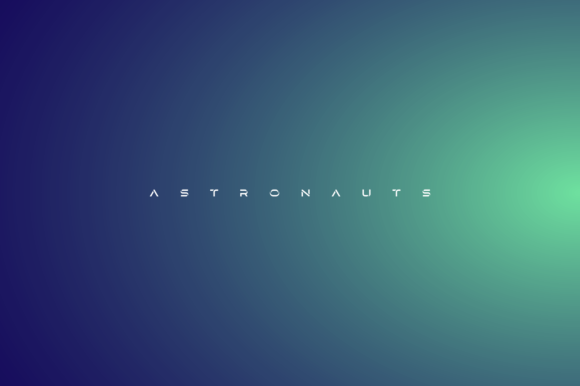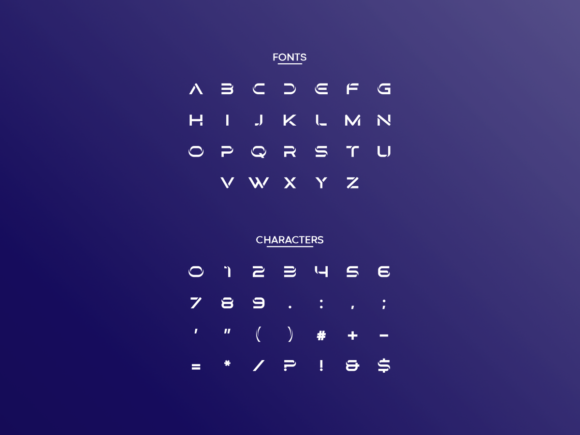
Introduction to Cordo Font
Cordo is a cool, modern and adaptable display font.
It is ideal for writing web designs, business cards, or pretty much anything else that requires a techno touch .
Key Features of Cordo Font